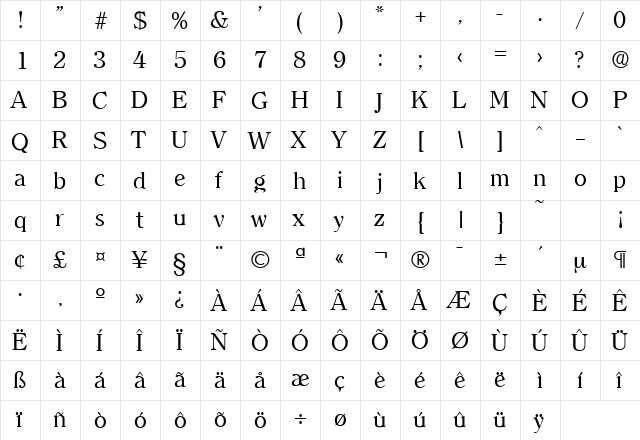
Clearface-Serial Regular
Design Context for Clearface-Serial Typeface
Clearface-Serial offers clean, dependable letterforms without strong stylistic allegiance, making it a practical choice for designers who need flexibility.